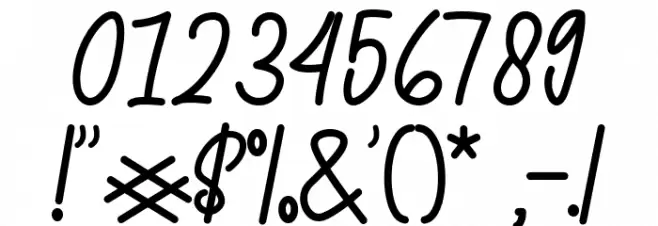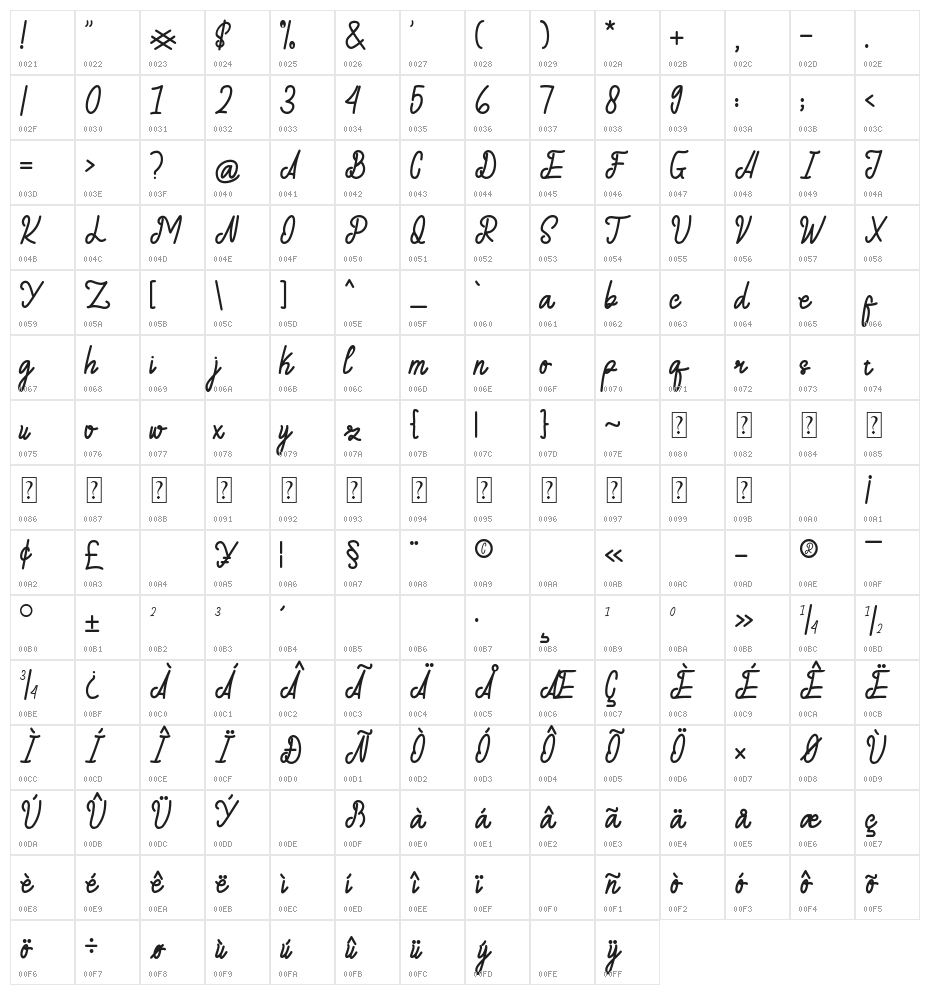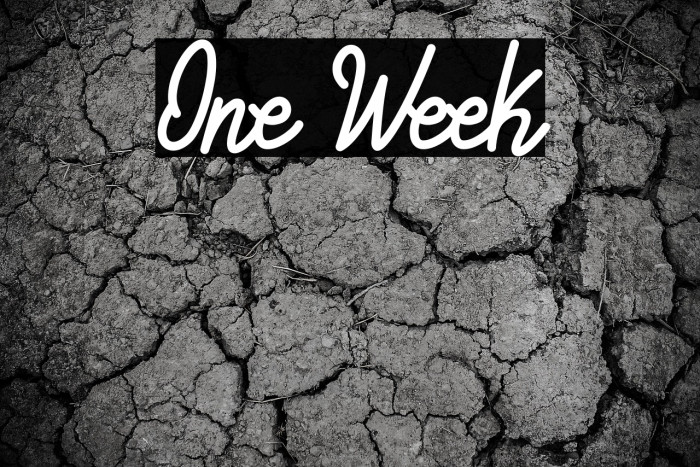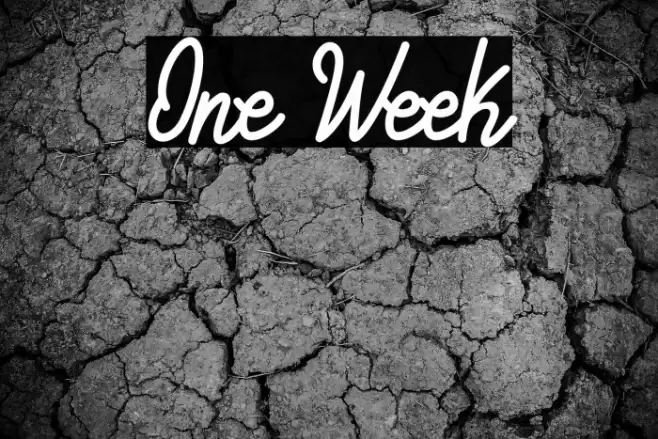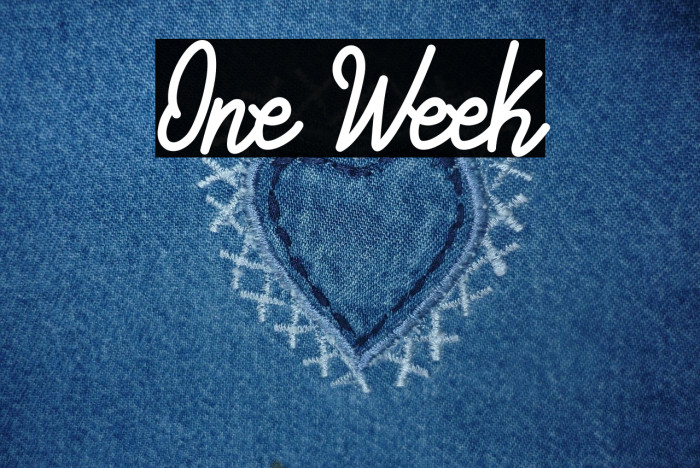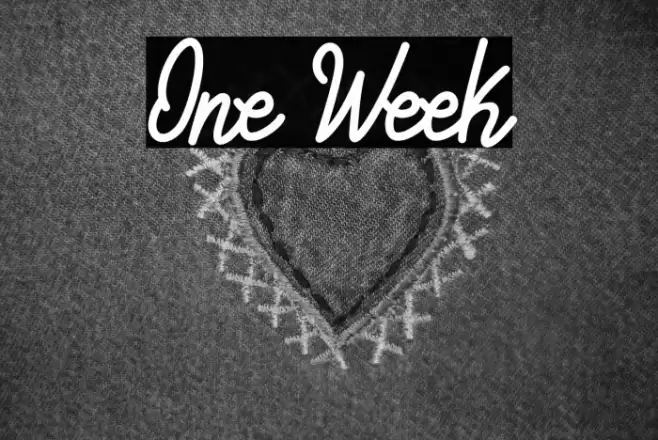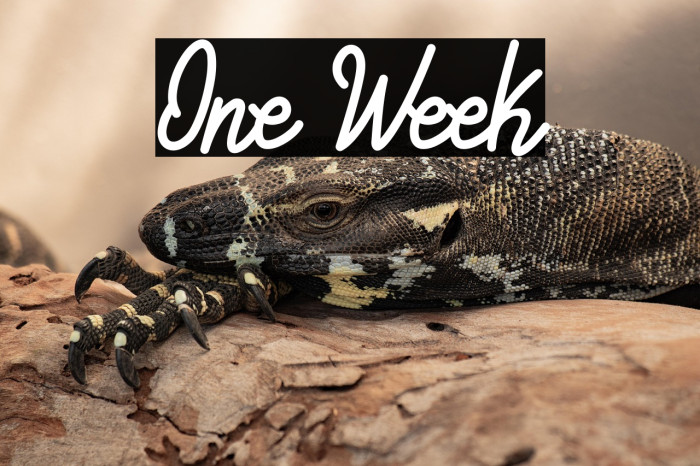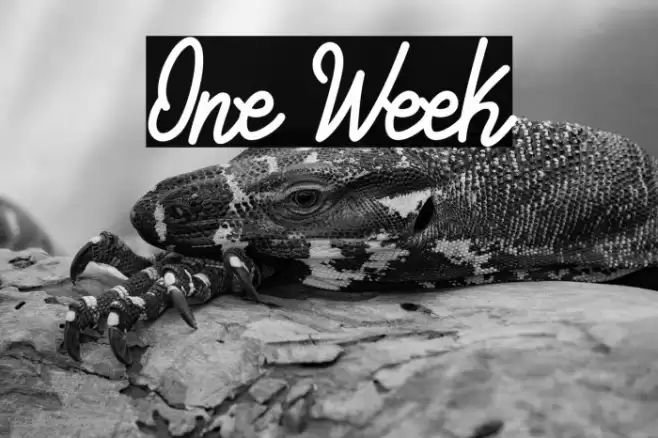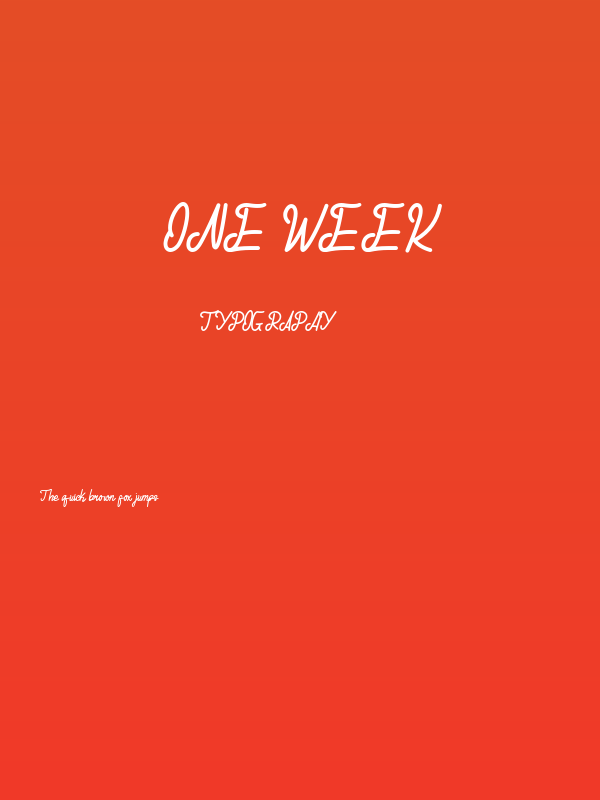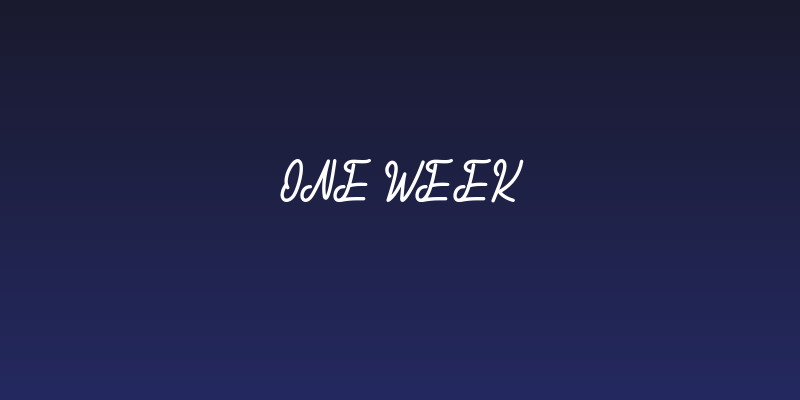
One Week Font
One Week Description
This font features a flowing, cursive style that mimics elegant handwriting. The uppercase letters are slightly more structured, maintaining a consistent height, while the lowercase letters exhibit a playful, looping design. The numerals are clear and legible, maintaining the cursive theme with gentle curves. Special characters are integrated seamlessly, adding to the font's cohesive appearance. The overall look is both sophisticated and approachable, making it suitable for a variety of design applications.
Overall StyleElegant, Handwritten
Use CaseLogos, Invitations, Decorative Text
Proposed ProjectsIdeal for wedding invitations, greeting cards, personal branding, and decorative signage.